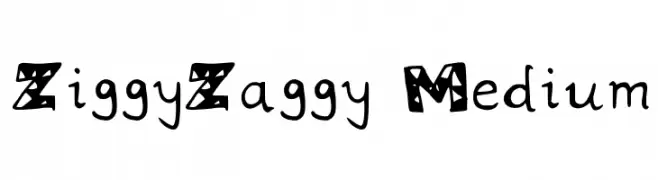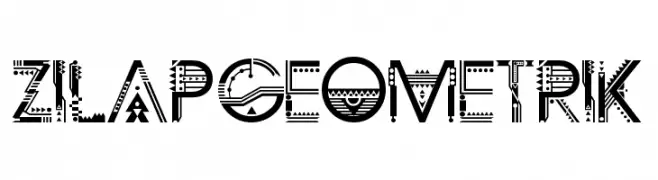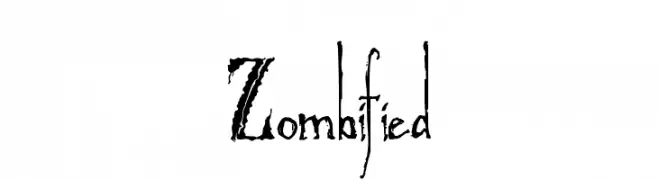
( Fonts by LJ Design Studios )
A decorative font with geometric patterns and African motifs, ideal for cultural projects.
( Fonts by Luis Jaramillo )
A decorative geometric font with intricate patterns and bold shapes.
( Fonts by LJ Design Studios )
A bold, geometric font with outlined characters and a modern-retro aesthetic.
( Fonts by Jacob Fisher - www.pizzadude.dk )
A playful, hand-drawn font with whimsical dots and irregular shapes.
( Fonts by www.fontalicious.com )
A playful, hand-drawn font with bold, irregular strokes and quirky letterforms.
( Fonts by Sinister Visions - Chad Savage - www.sinisterfonts.com )
A spooky, jagged font with a distressed, eerie style perfect for Halloween themes.